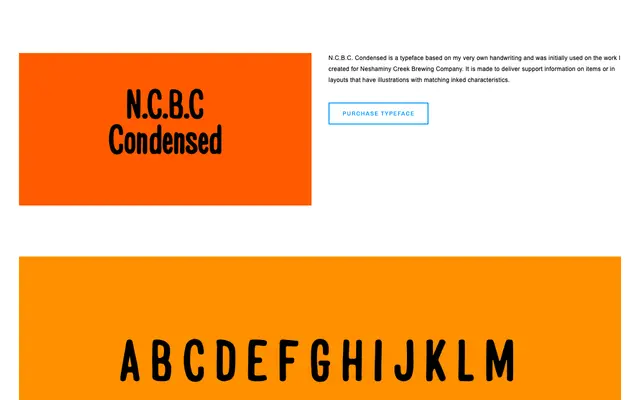
N.C.B.C. Condensed
A condensed display face drawn from the designer's own handwriting, originally created to pair with hand-inked illustration work for Neshaminy Creek Brewing Company.
Derived directly from JP Flexner's personal handwriting, this face was first deployed on packaging and promotional material for Neshaminy Creek Brewing Company. Its condensed proportions and inked character make it a functional companion to hand-drawn illustration, providing supporting text without breaking the visual register of the broader artwork. Best suited to craft, food and beverage, or editorial contexts where a raw, hand-produced quality is the goal.
A condensed display face derived directly from the designer's own handwriting, intended to complement hand-inked illustration work rather than serve as a conventional script or text face.